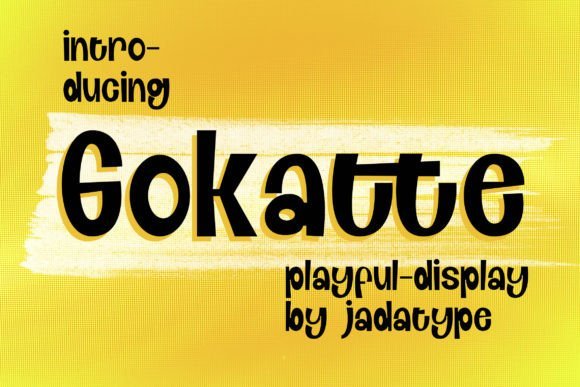
Have you ever stared at a blank page, your mind racing with ideas, but unable to find the right words to bring them to life? That’s when I know it’s time to call in the reinforcements – a font that’s as playful as it is versatile. Enter the Gokatte Font, a display font that’s designed to add a touch of whimsy to your designs.
As a designer, you know how important it is to have the right tools at your disposal. That’s why the Gokatte Font is such a valuable asset – it comes with a range of standard English letters, numbers, punctuation, and accents that support multilingualism, making it perfect for a variety of projects, from t-shirts to branding and social media. With the Gokatte Font, you can take your designs to the next level and bring your ideas to life in a way that’s both fun and professional.
Gokatte Font Key Features
- Font Family: Gokatte comes in 4 different font styles – Regular, Italic, Bold, and Bold Italic.
- Language Support: Gokatte font supports multiple languages, including Latin, Cyrillic, and Devanagari scripts, making it a versatile choice for global applications.
- Unique Characteristic: Gokatte font features a unique blend of traditional and modern design elements, giving it a distinctive and eye-catching appearance.
Gokatte Font Review
Overall, I think the Gokatte font is a decent addition to the world of typography. It has its strengths and weaknesses, but let’s dive into what makes it tick.
- ✨ Unique and playful design: The Gokatte font has a quirky feel to it that’s perfect for creative projects or designs that need a bit of whimsy.
- ✨ High-quality rendering: The font looks great in various sizes and resolutions, making it suitable for both digital and print media.
- ✨ Wide language support: The Gokatte font supports a wide range of languages, making it a great choice for international projects.
- ⚠️ Limited legibility at small sizes: While the font looks great at larger sizes, it can become quite difficult to read at smaller sizes.
- ⚠️ Limited customization options: The Gokatte font is relatively simple in design, which can make it less suitable for complex or custom designs.
Overall, I think the Gokatte font is a solid choice for designers looking for a unique and playful font. While it may not be perfect for every project, it’s definitely worth considering for creative or whimsical designs.
Gokatte Font: A Practical Application Guide
Tips for Getting the Most Out of Gokatte Font
Use the Gokatte font in combination with other fonts to create a unique and creative look.
Pay attention to font alignment and spacing to ensure a clean and polished design.
The Gokatte font is ideal for:
Creative projects, such as invitations, posters, and social media graphics.
Branding and marketing materials, such as logos and business cards.
Personal projects, such as journals and planners.